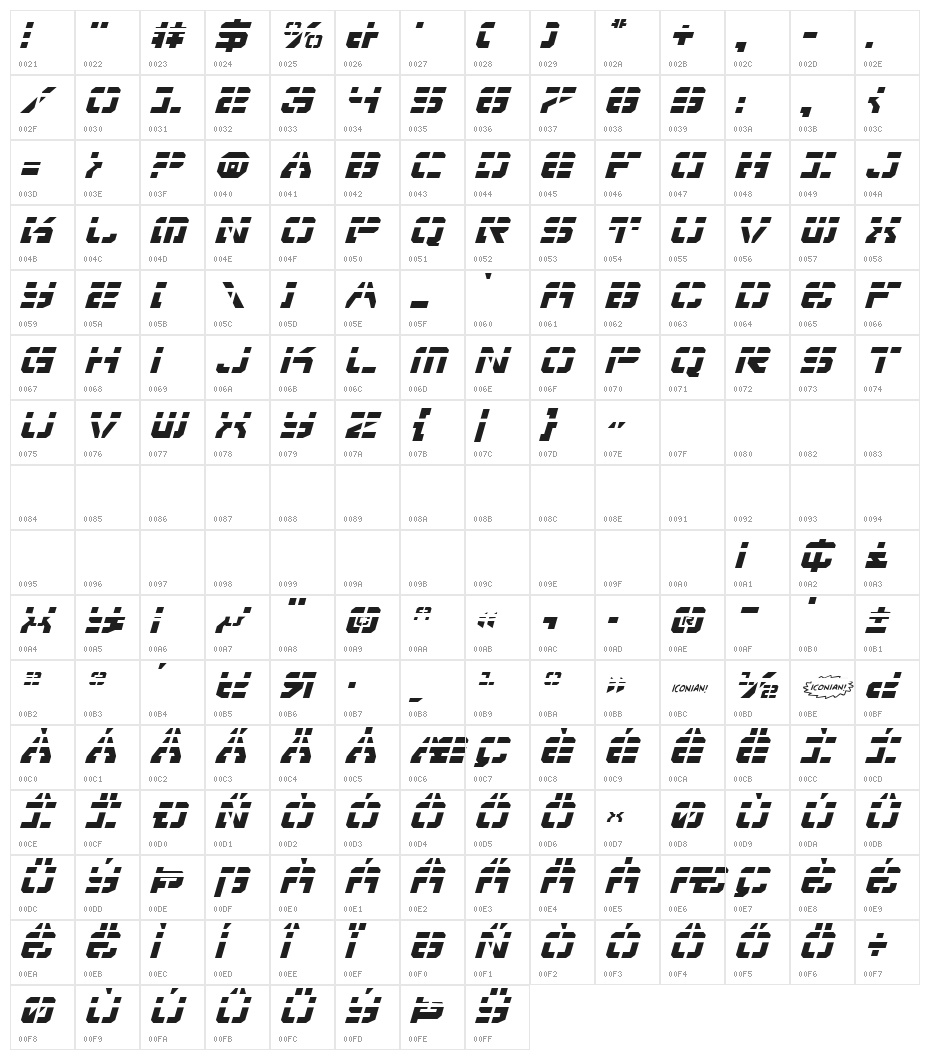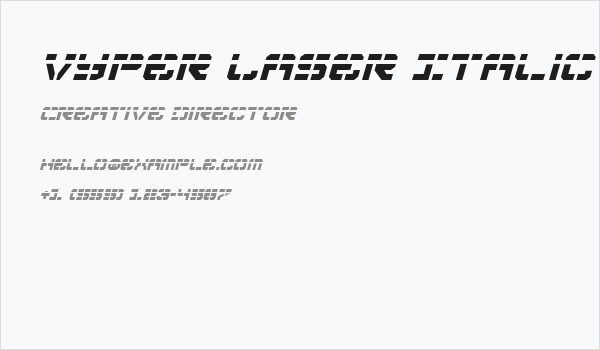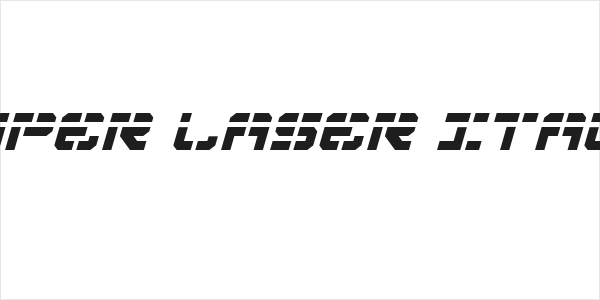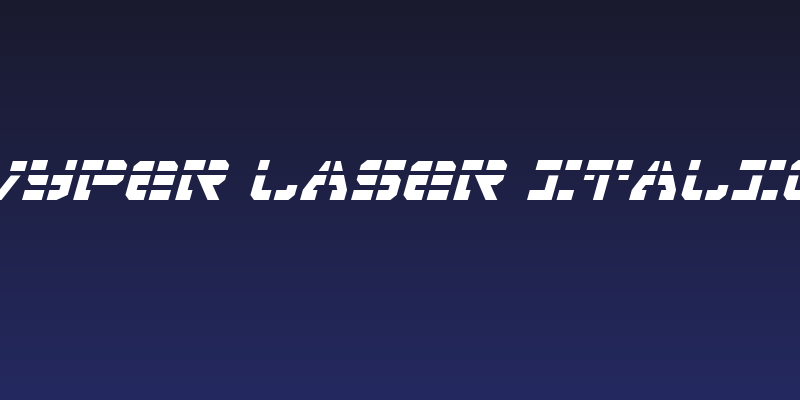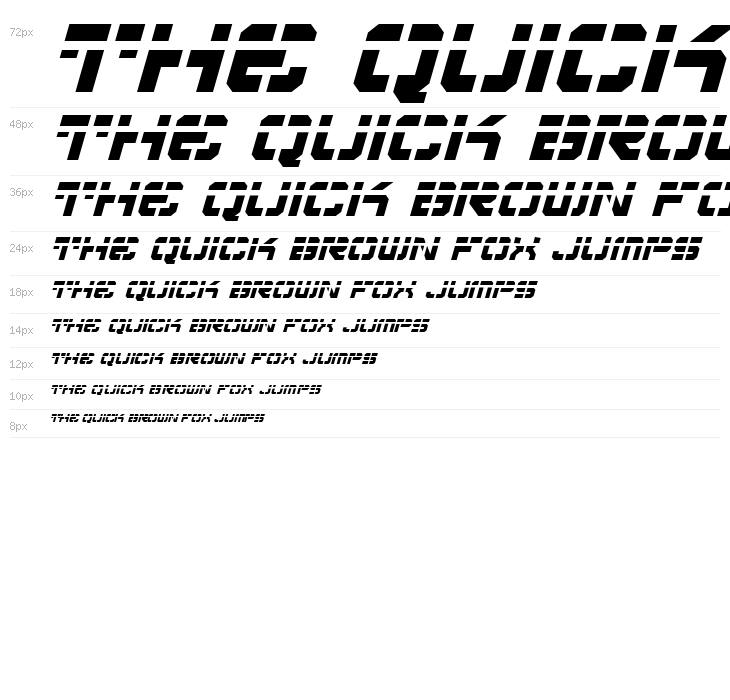
Vyper Laser Italic Font
Vyper Laser Italic Description
This font features a futuristic and dynamic design with a strong geometric influence. The characters are bold and italicized, giving them a sense of motion and speed. The angular cuts and sharp edges create a high-tech aesthetic, reminiscent of digital displays or sci-fi themes. The consistent slant across all characters enhances the italic style, while the bold weight ensures strong visibility and impact. This font is ideal for projects that require a modern and edgy look, such as technology branding, video game titles, or sports team logos.
| Proposed Projects | Ideal for technology branding, video game titles, sports team logos, and sci-fi themed designs. |